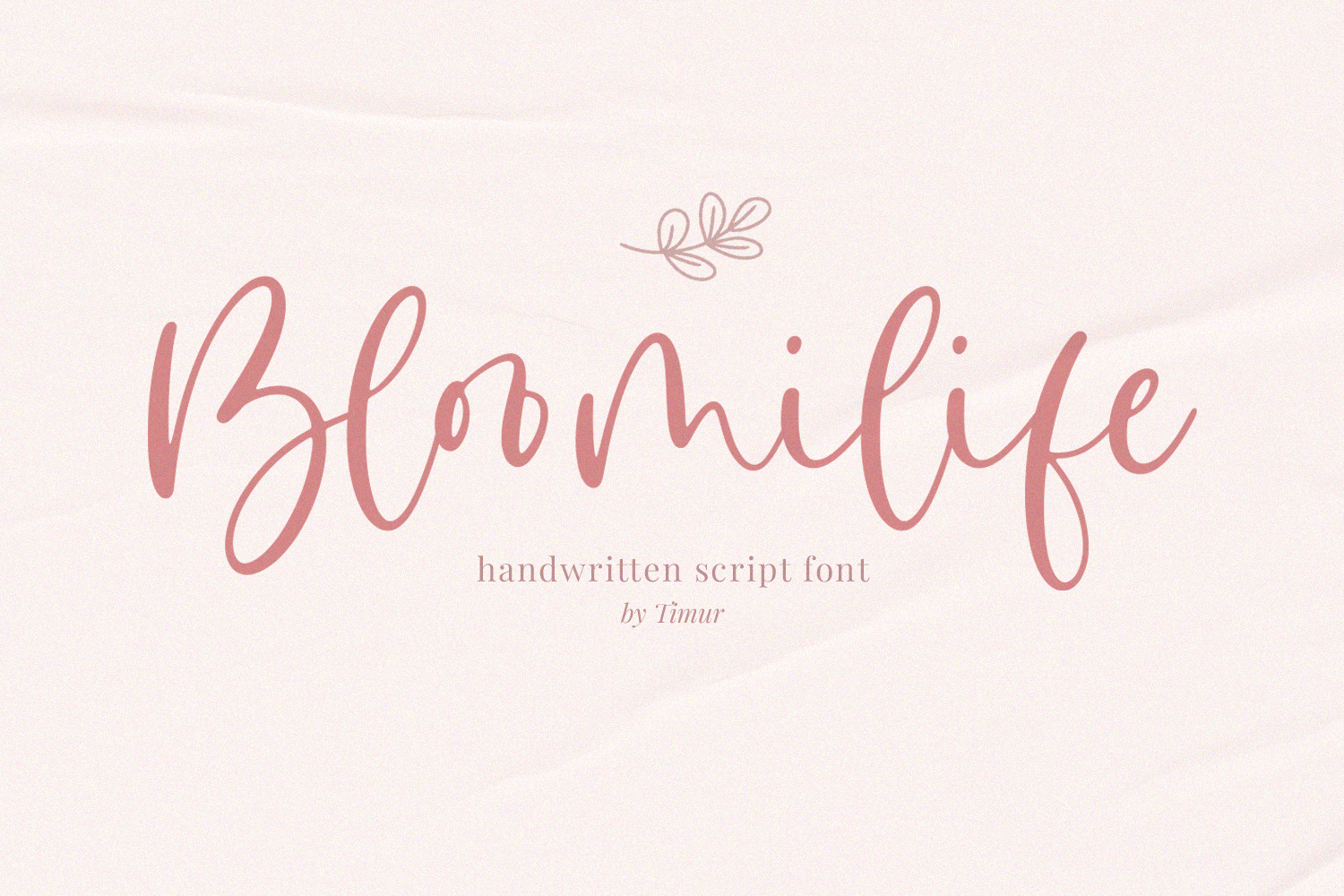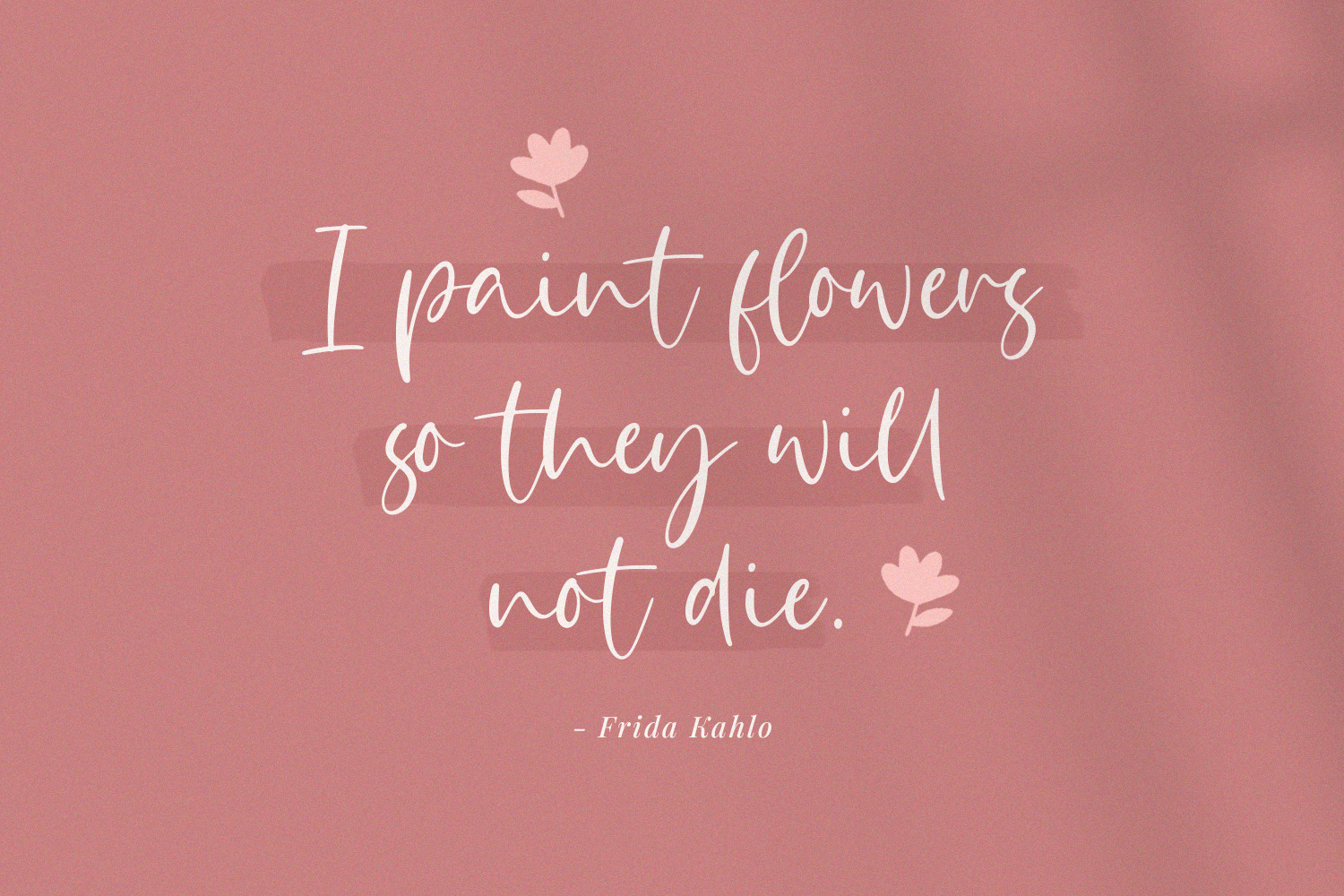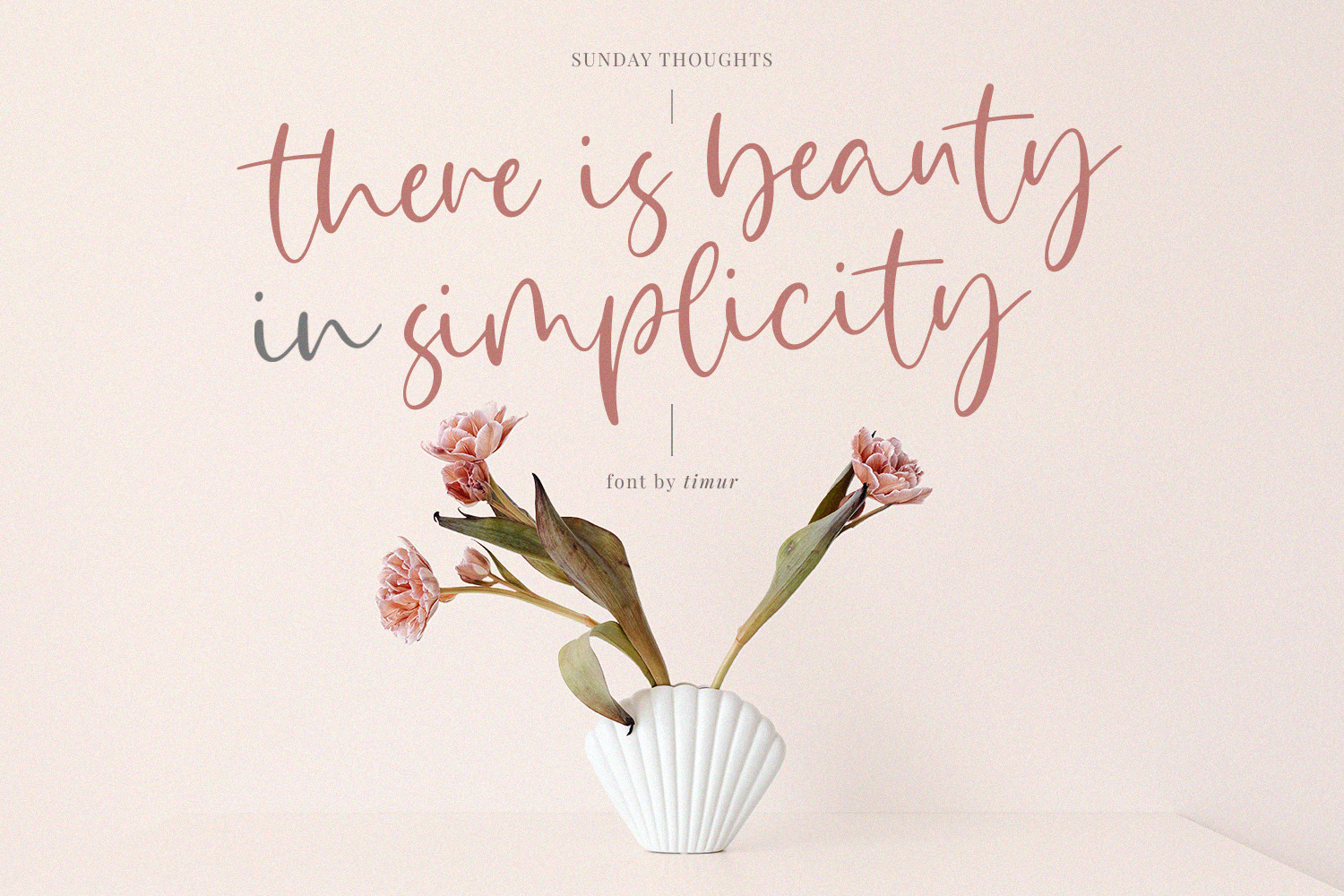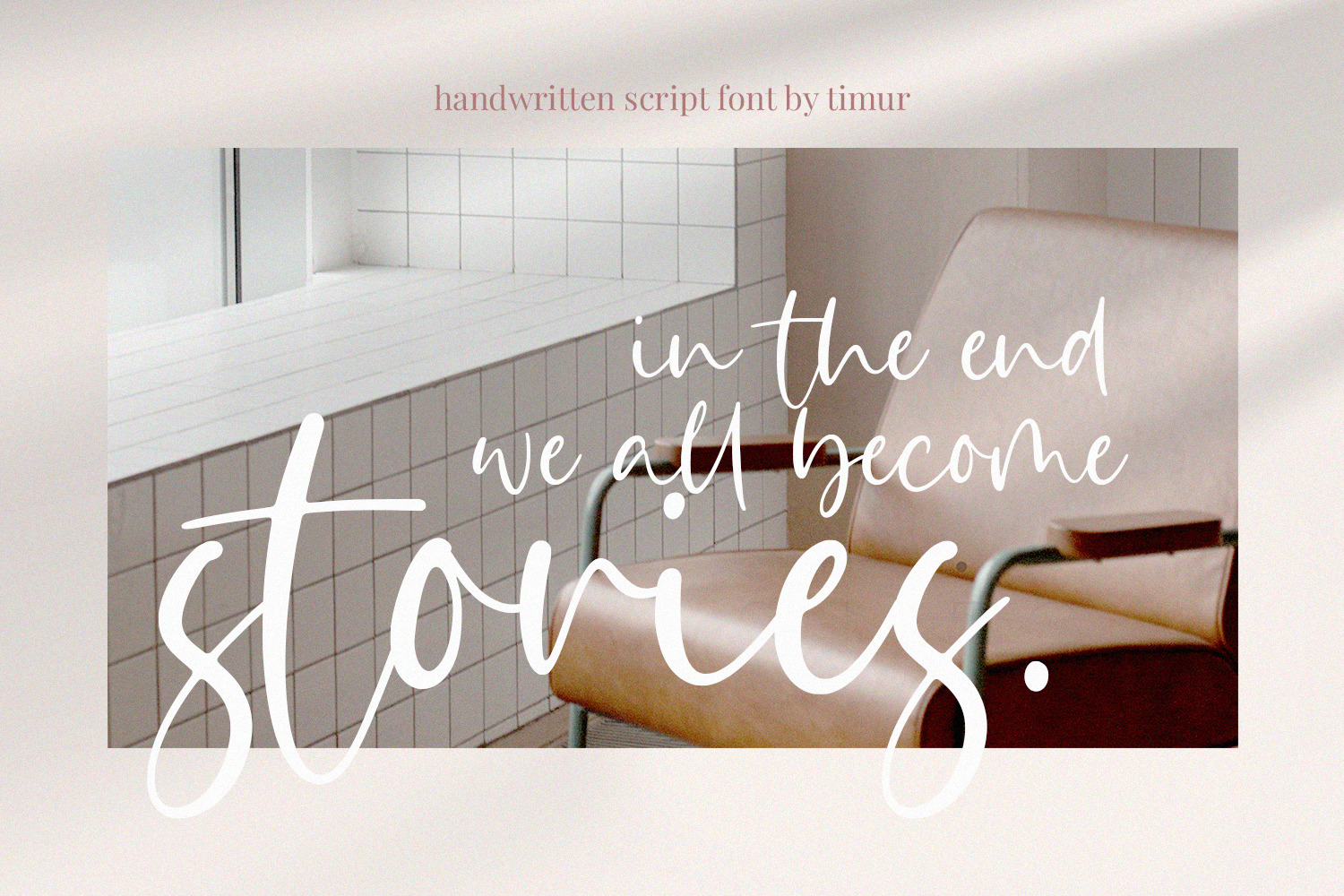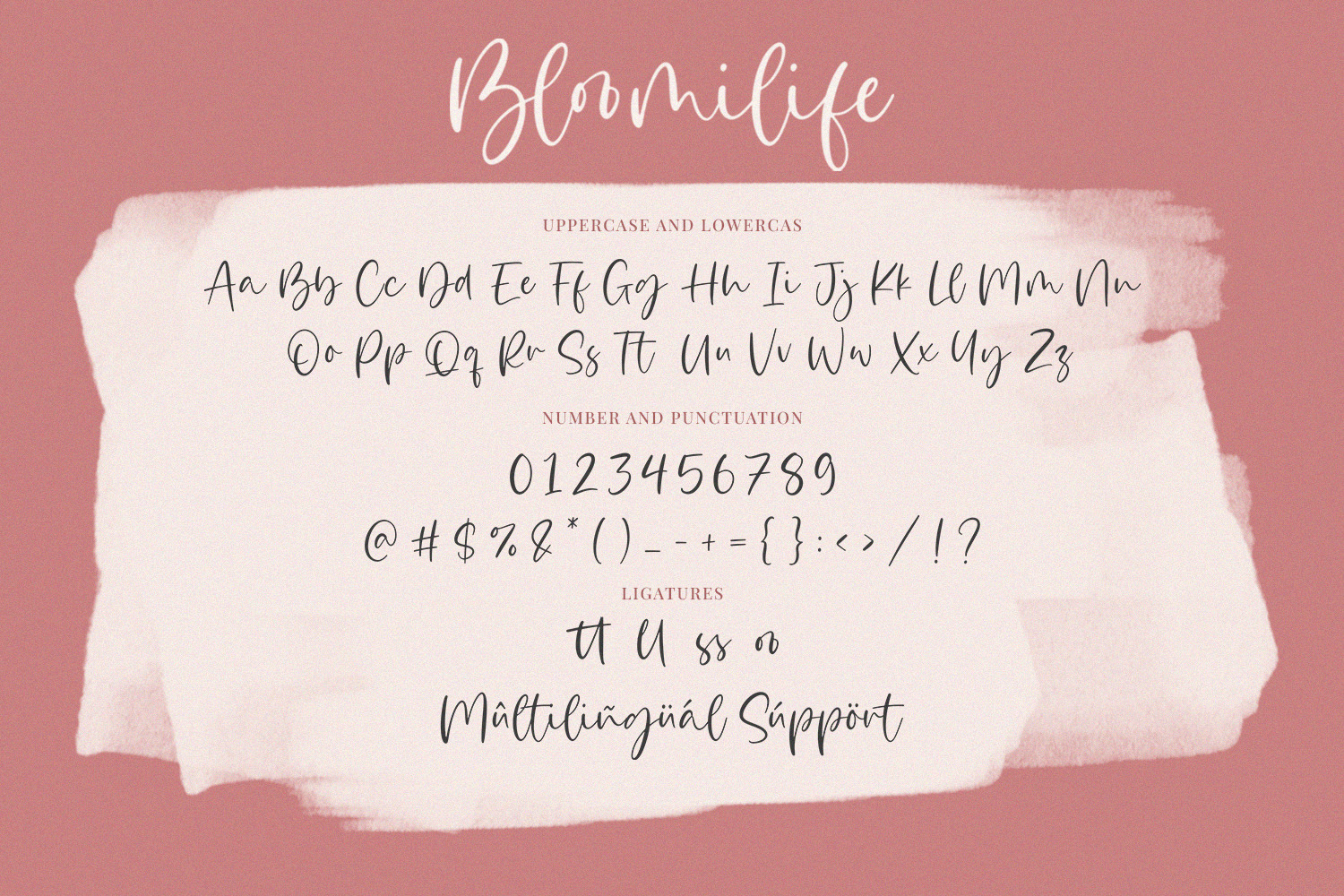
Bloomilife A Handwritten Font
Bloomilife A Handwritten Font , which was created with great care and specially created for you
This pack is perfect for greeting cards, branding, business cards, quotes, posters, stickers, blogs, logos, weddings, signage, packaging, birth announcements, photo overlays, wall art, quotes, printed materials, bags, t-shirts and much more !
Also multilingual support.